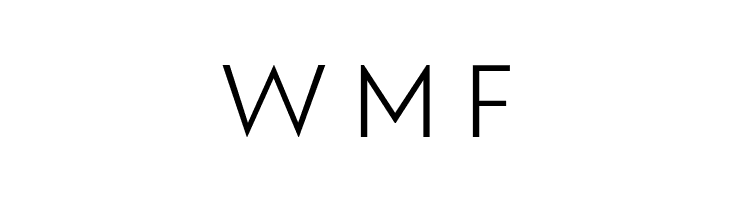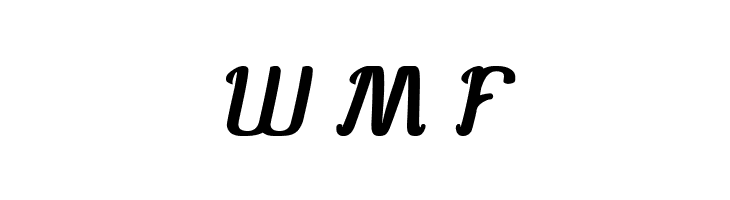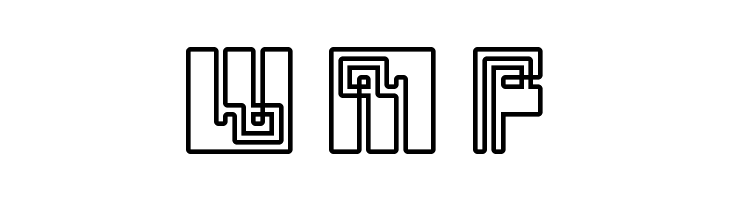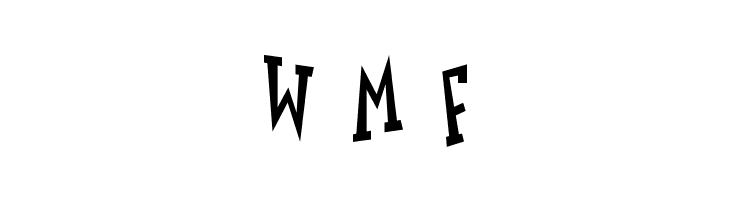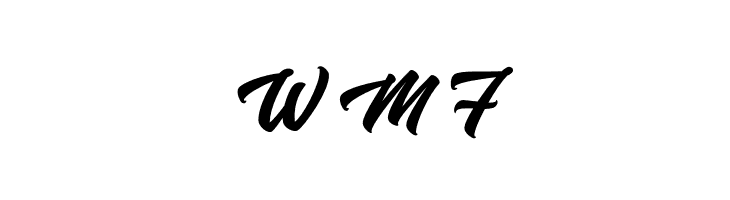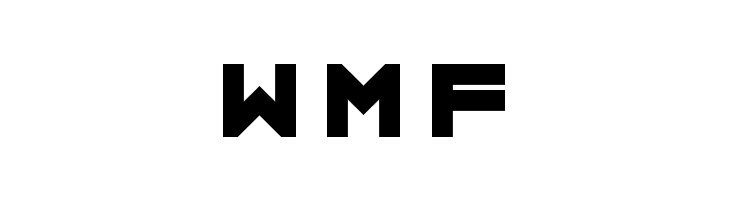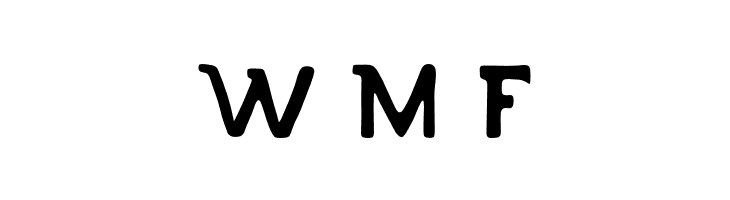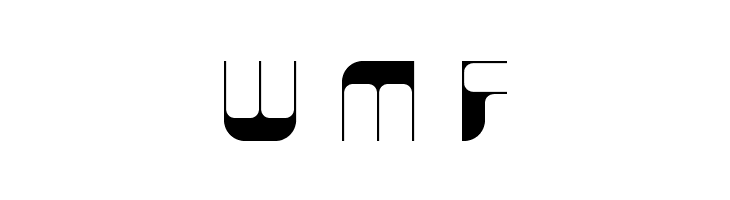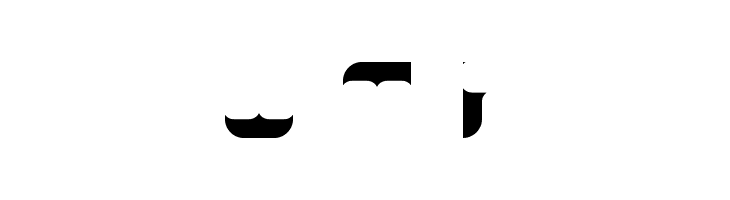
A playful, romantic cursive script with whimsical details.
A bold, geometric font with a modern and clean aesthetic.
A bold, playful font with rounded edges and medium contrast, perfect for creative projects.
A bold, italicized font with a modern and playful style.
A geometric, maze-like font with a bold, digital aesthetic.
A modern, light sans-serif font with excellent readability and low contrast.
A modern, geometric font with thin lines and a clean, elegant style.
A modern, geometric font with clean lines and open curves.
A playful, hand-drawn font with exaggerated serifs and a whimsical style.
A bold, geometric font with sharp angles and a modern, industrial feel.
A bold, geometric font with a playful and modern design.
A clean, modern geometric font with uniform line thickness and minimalist design.
A bold, modern font with strong, geometric shapes and even spacing.
A bold, distressed font with a graffiti-like, rugged style.
A bold, geometric font with a modern and edgy style.
A geometric, hollow font with a futuristic and modern aesthetic.
A futuristic, geometric font with high contrast and bold, angular shapes.
A classic serif font with sharp serifs and moderate contrast, offering elegance and readability.